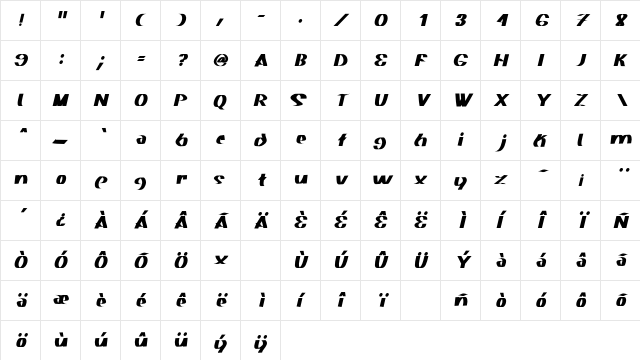
Akasic Medium-Italic
Style: Medium-Italic
Akasic Family
Akasic Medium-Italic
Design Context for Akasic
Akasic is a composed and adaptable typeface that performs quietly and consistently across a wide range of design contexts. The slanted form adds forward momentum and visual energy.
Pro Tip: Use Akasic for emphasis, pull quotes, and subheadings where its slanted energy can add rhythm to the layout.